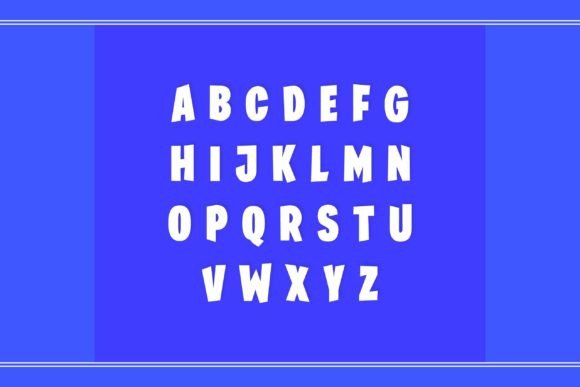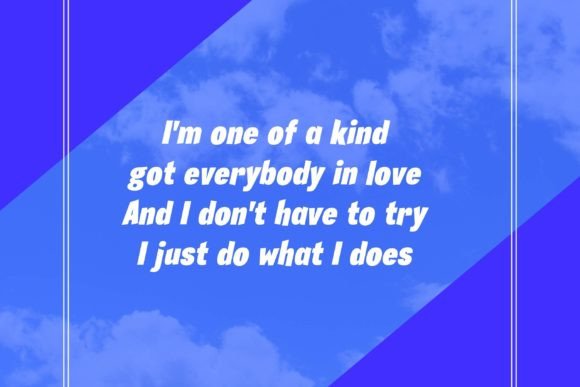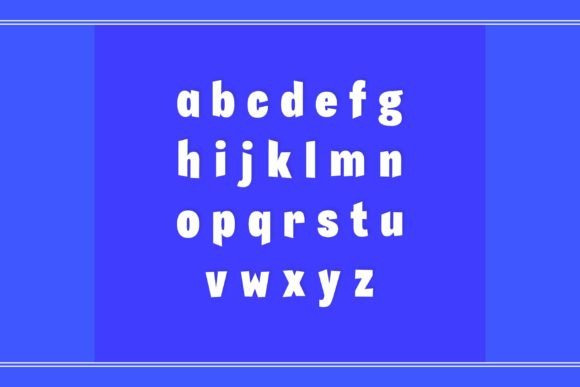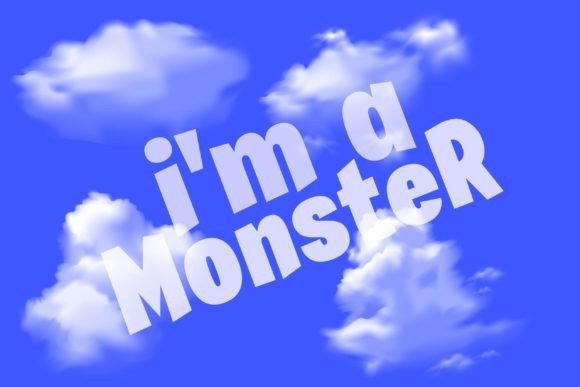
Introduction to Nitefort Font
You’re staring at your blank canvas, brainstorming ideas for your next creative project. The words are flowing, but the design just isn’t quite coming together. That’s when you remember – a bold, striking font can be the game-changer you need to elevate your work. Enter the Nitefort Font, a powerful display font designed to make a statement.
Whether you’re working on a high-end branding project or a low-key design for a friend’s business, the Nitefort Font is an invaluable resource in your design arsenal. Its bold, assertive style is guaranteed to add depth and character to any creation, making it a must-have for designers looking to take their work to the next level. And the best part? This versatile font is available as a free download, complete with a transparent background for seamless integration into your designs.
Key Features of Nitefort Font
- Unique, hand-crafted design ideal for creative projects requiring a distinctive touch.
- Designed to work well with a variety of design styles, from modern to vintage, making it a versatile design resource.
Honest Review: Nitefort Font
I recently had the chance to work with the Nitefort Font for a creative project, and I was pleasantly surprised by its potential. As a designer, I’m always on the lookout for high-quality design resources that can elevate my work, and this font definitely fits the bill.
- ✨ The font is incredibly versatile, with a wide range of styles and weights that can be used for a variety of applications.
- ✨ The high quality of the font ensures that it looks great on both light and dark backgrounds.
- ⚠️ The font may not be as bold or eye-catching as some other fonts on the market.
- ⚠️ It’s not ideal for use in very small font sizes, as it can become difficult to read.
Overall, I’m impressed with the Nitefort Font and would definitely consider using it again for future creative projects. It’s a great addition to any designer’s toolkit, and it’s definitely worth checking out if you’re looking for a high-quality, versatile font.
Nitefort Font is a versatile design resource perfect for creative projects. It offers a high-quality font with a transparent background, ideal for a variety of uses.
Experiment with different font sizes and styles to achieve the desired effect. Combine Nitefort Font with other design elements for a unique look.
Common Use Cases for Nitefort Font
Nitefort Font is ideal for creative projects such as branding, advertising, and graphic design. It’s also perfect for personal projects, like blog posts and social media graphics.